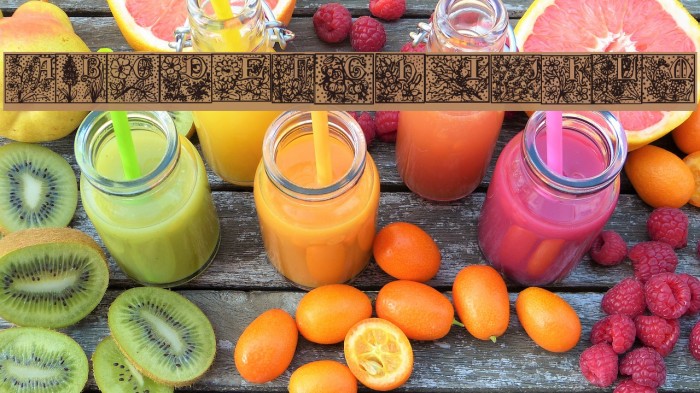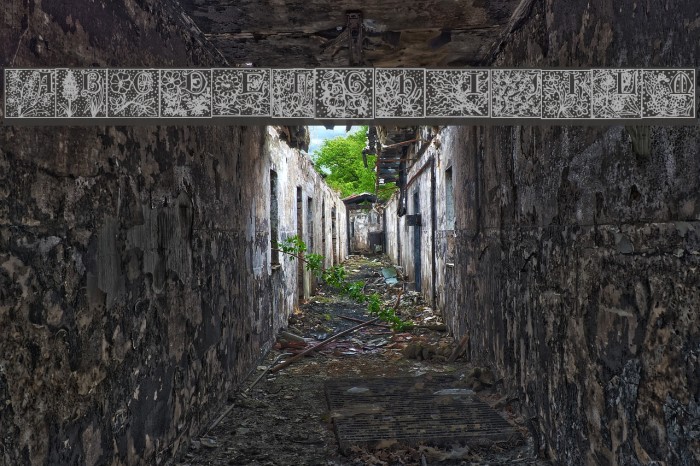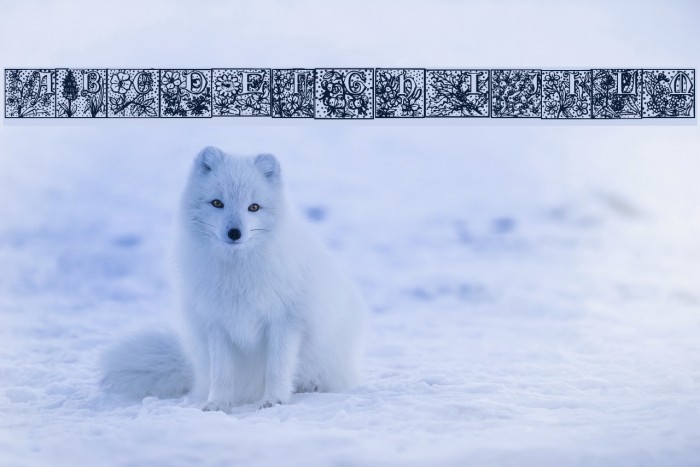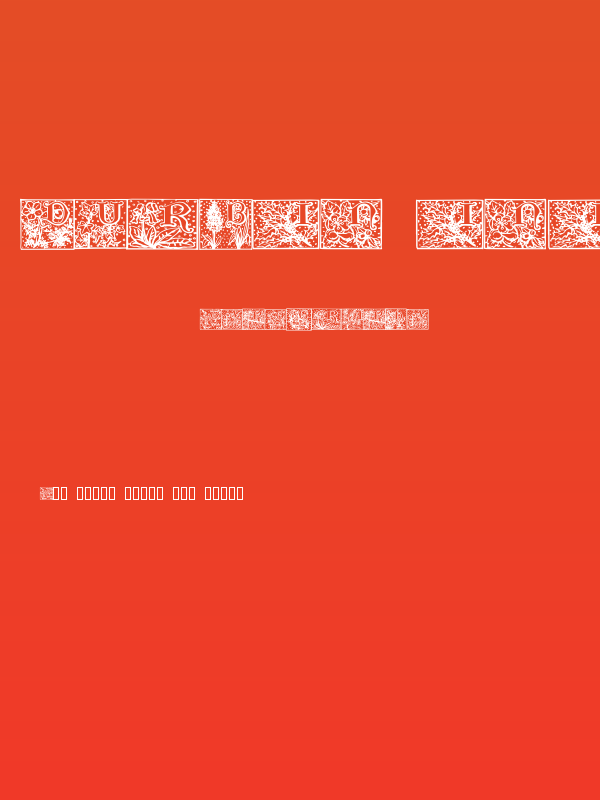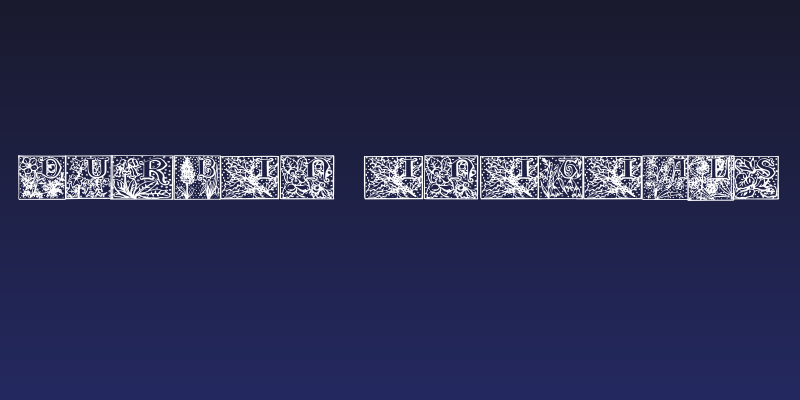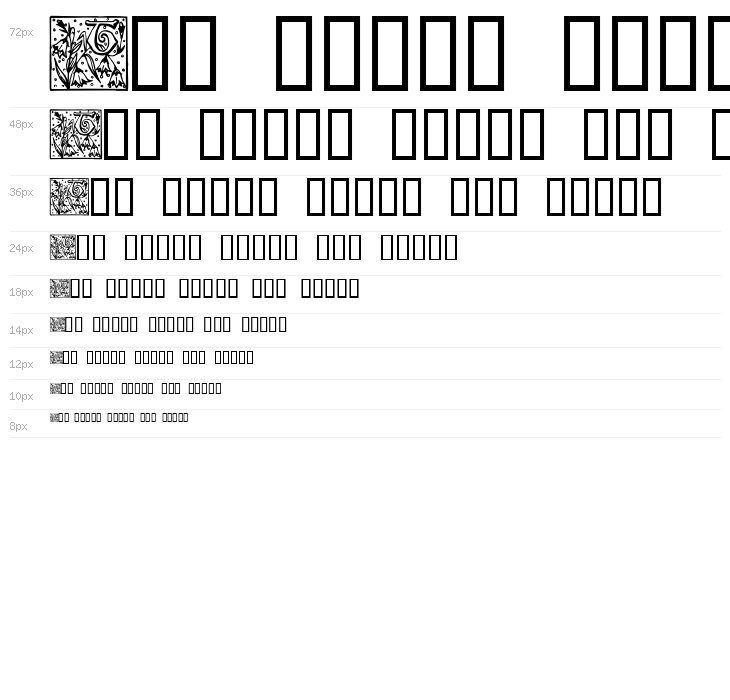
Durbin Initials Font
Durbin Initials Description
This font features ornate, decorative initials with intricate floral and vine motifs surrounding each letter. The uppercase letters are enclosed in square frames, each filled with detailed embellishments that give a vintage and artistic feel. The design is reminiscent of illuminated manuscripts, where each letter stands out as a piece of art. The absence of lowercase letters and numbers suggests a focus on decorative use rather than practical text composition. The intricate details make it suitable for projects that require a touch of elegance and historical charm.
| Use Case | Logos, Headlines, Decorative elements |
| Proposed Projects | Ideal for wedding invitations, book covers, decorative certificates, and artistic projects requiring a vintage touch. |